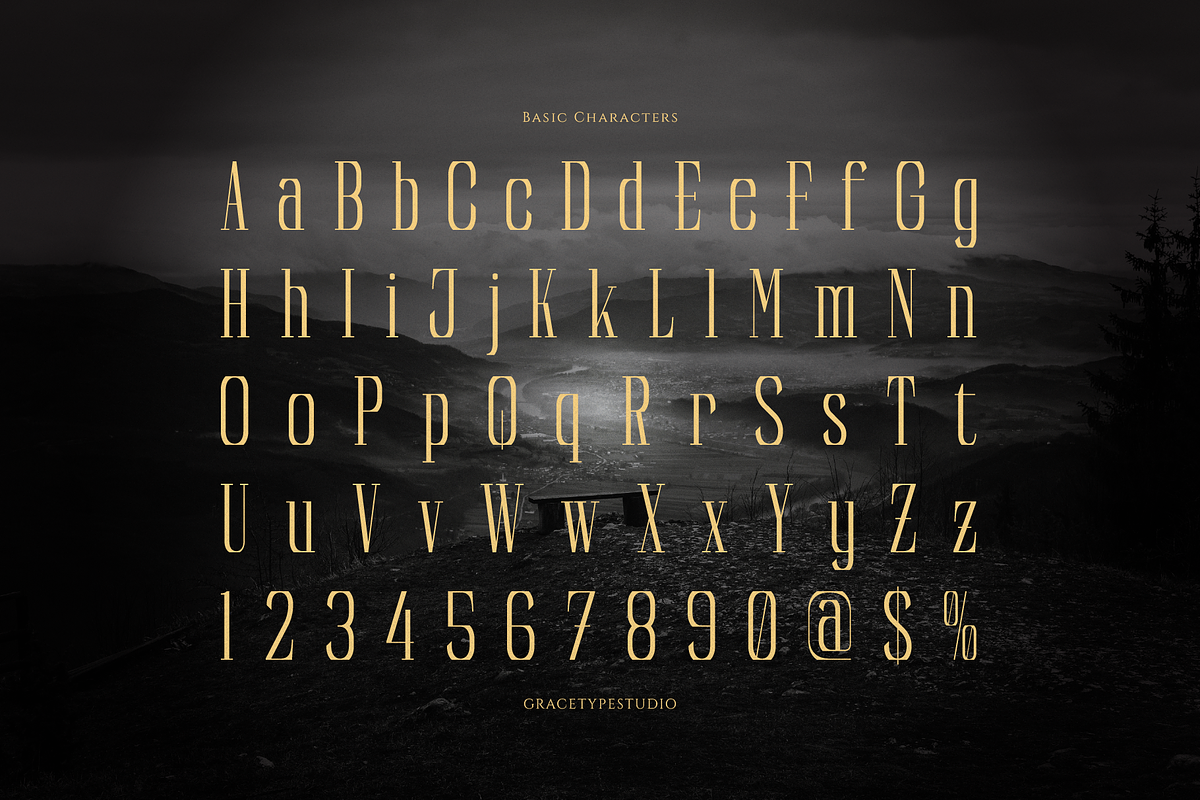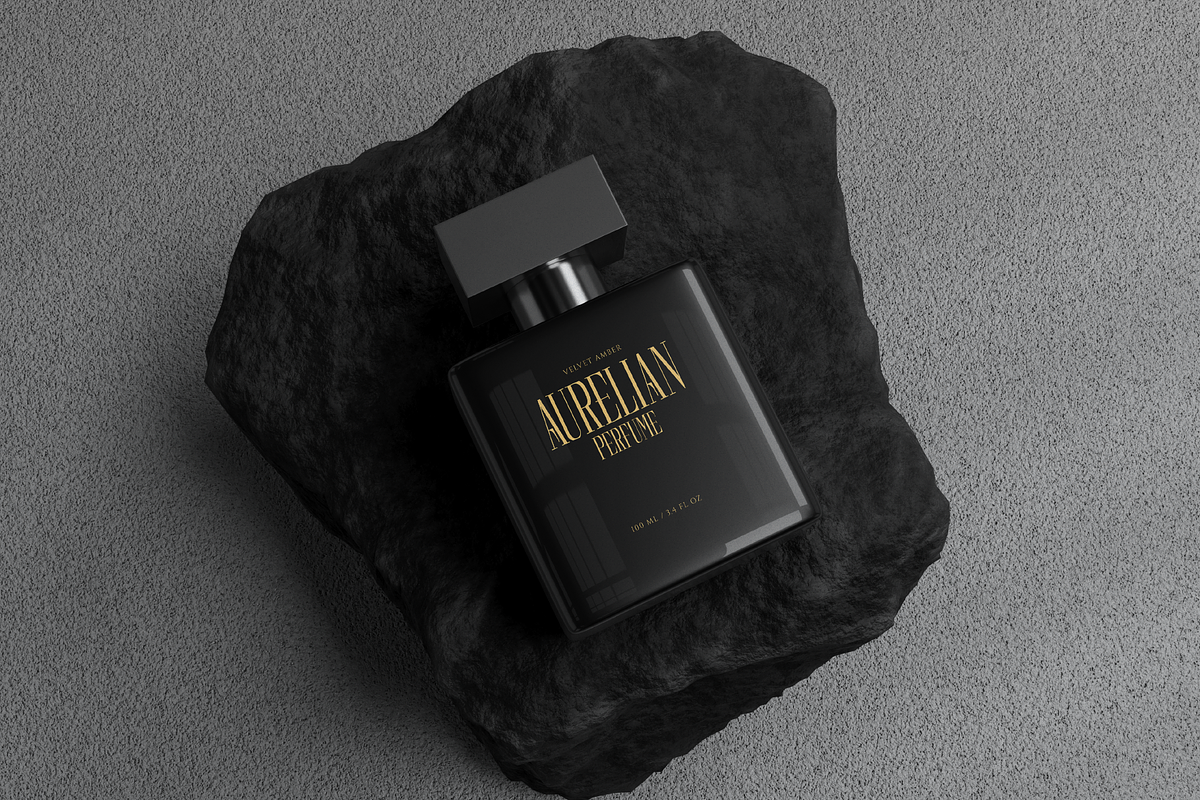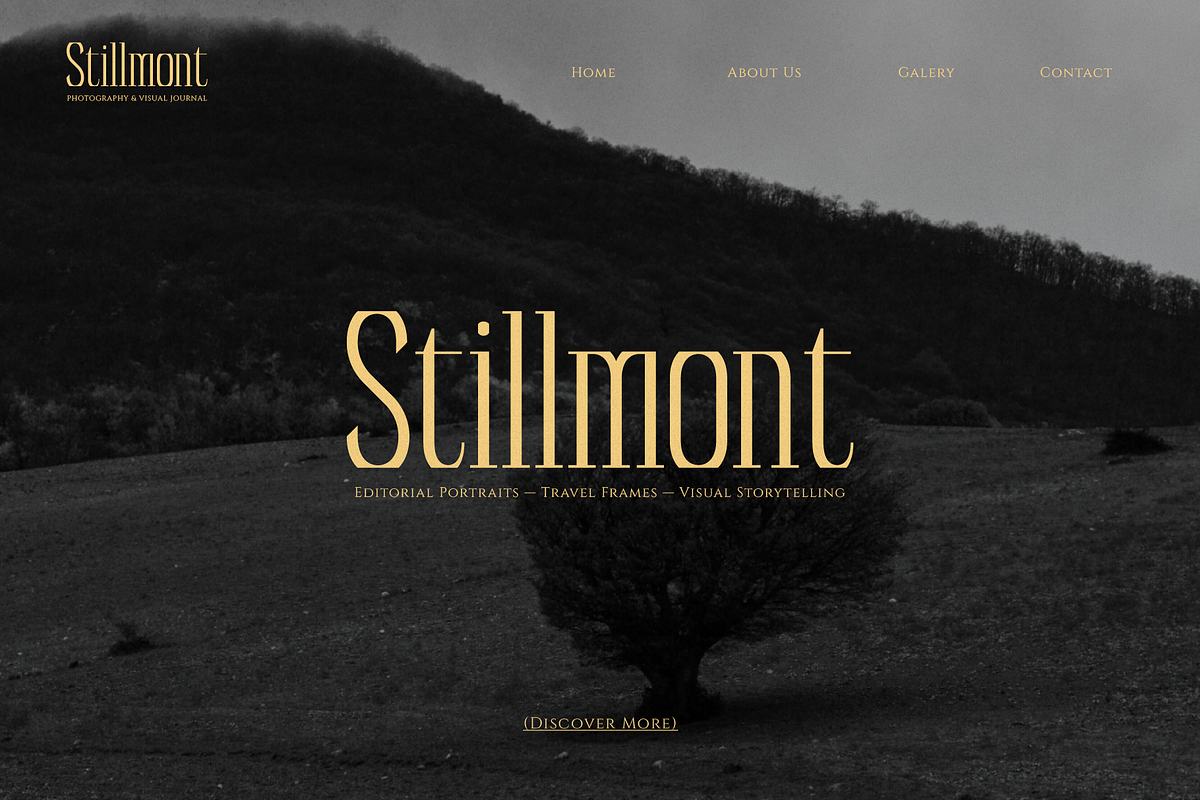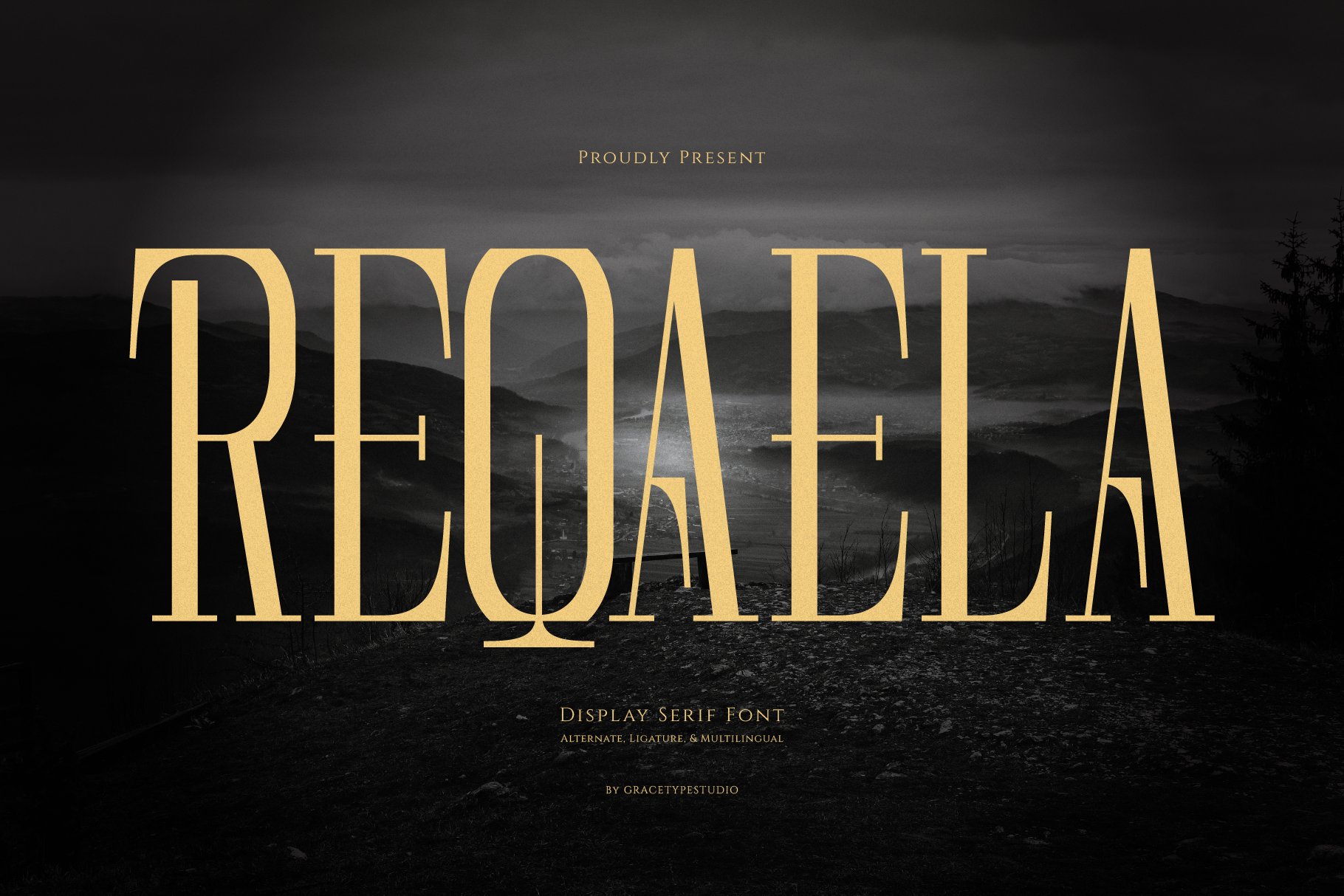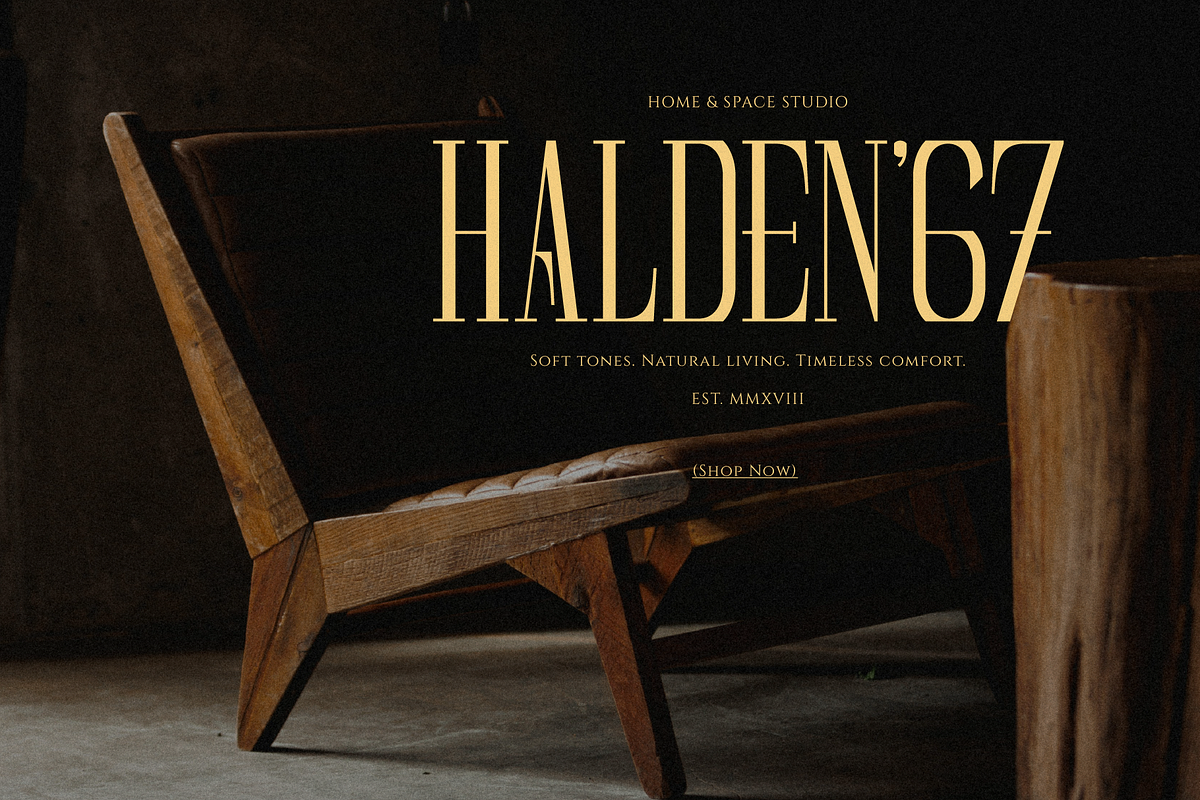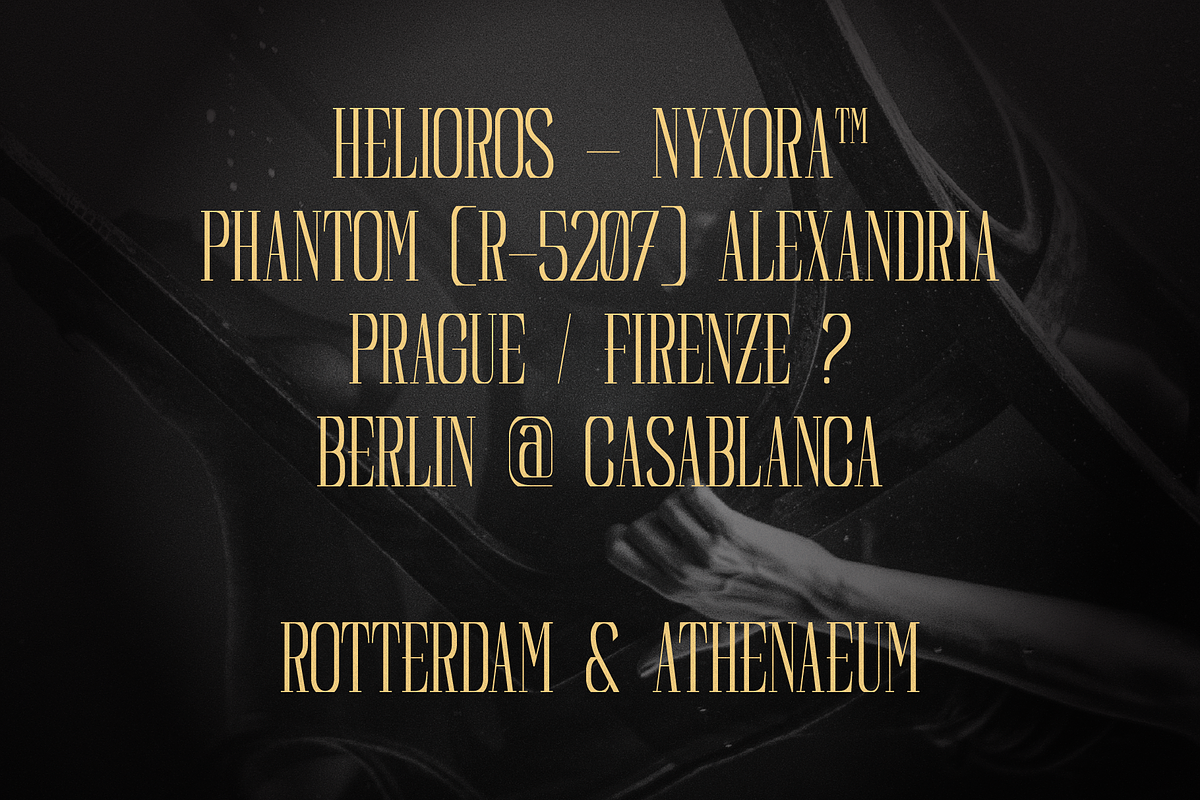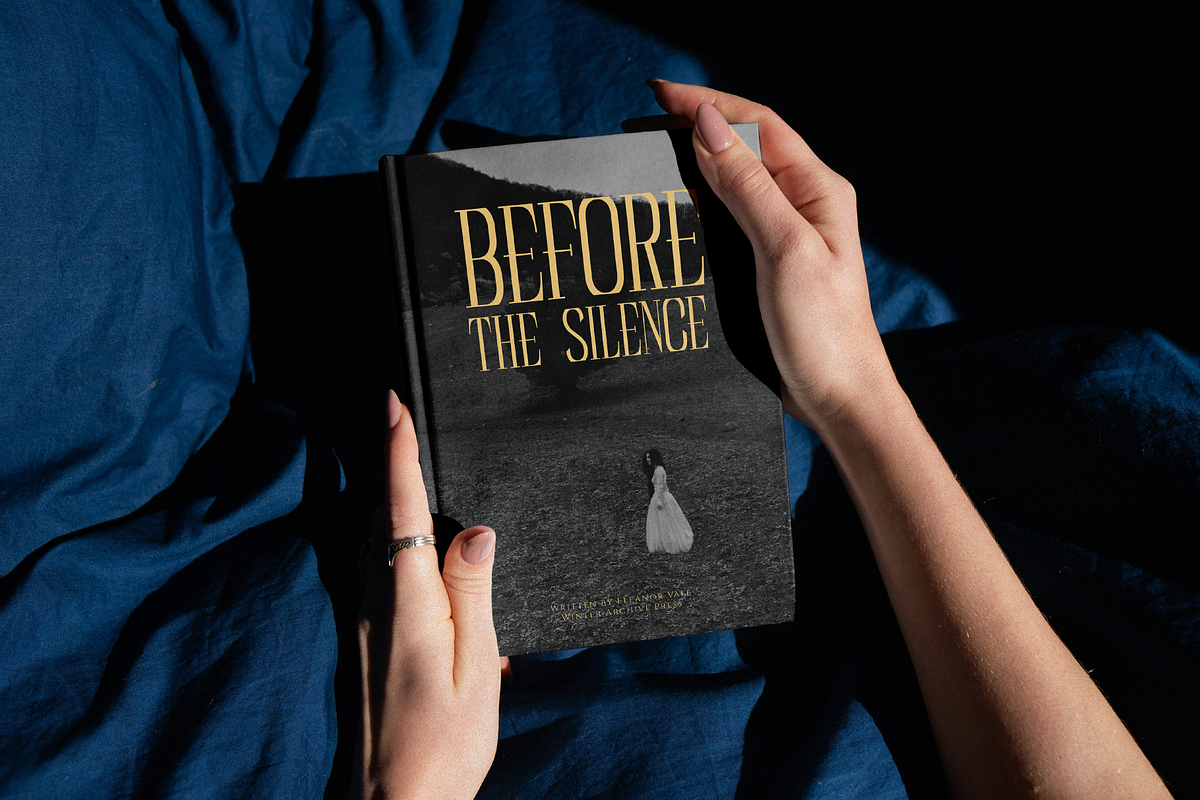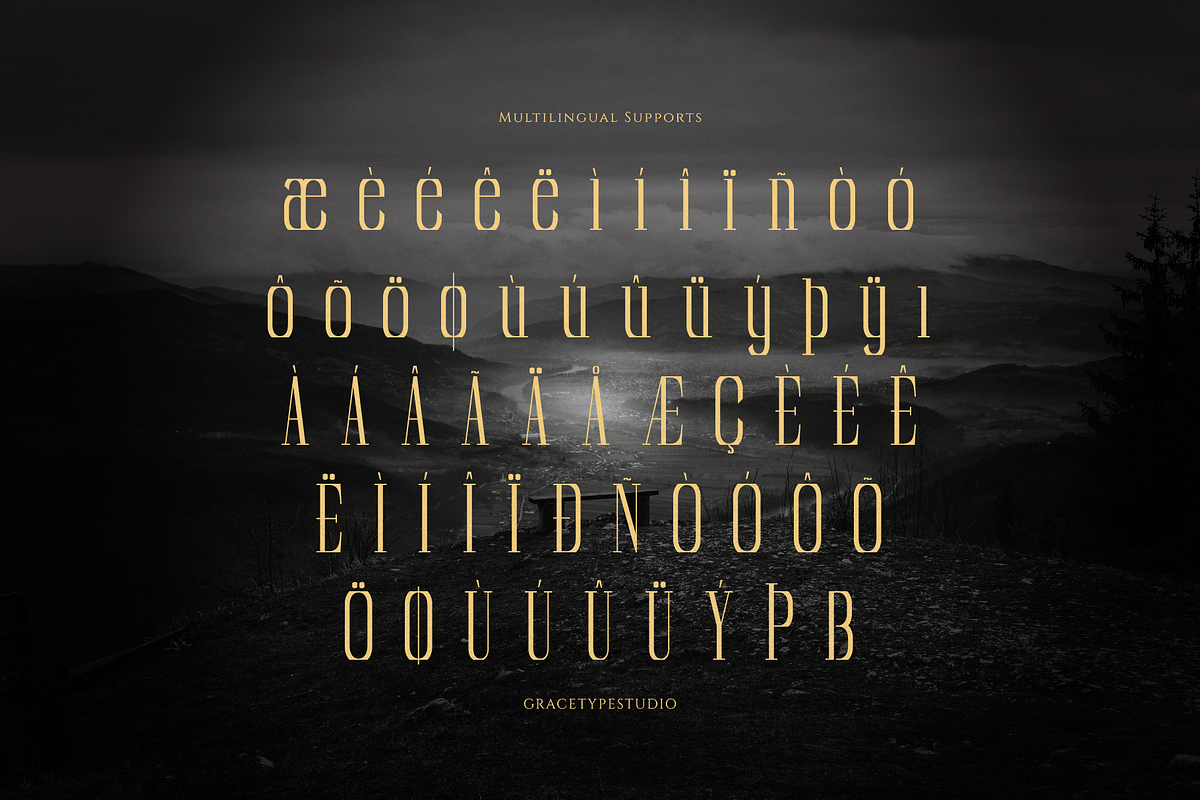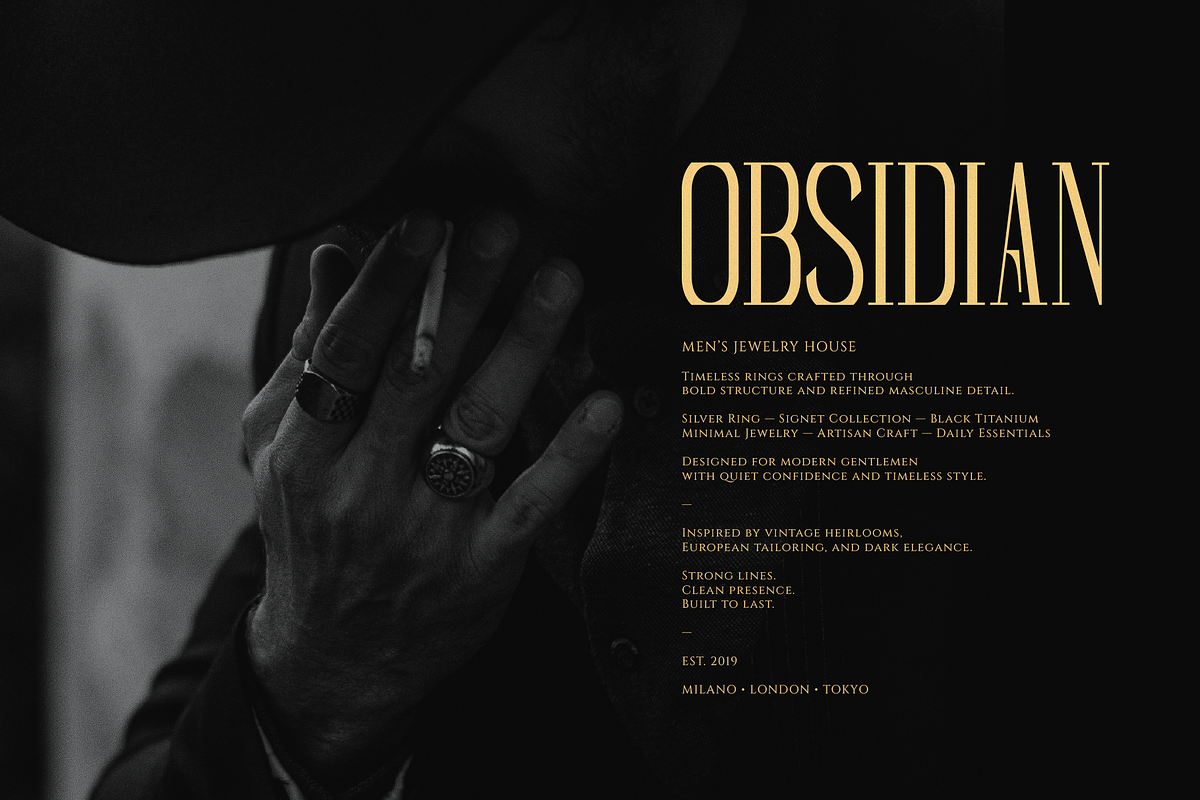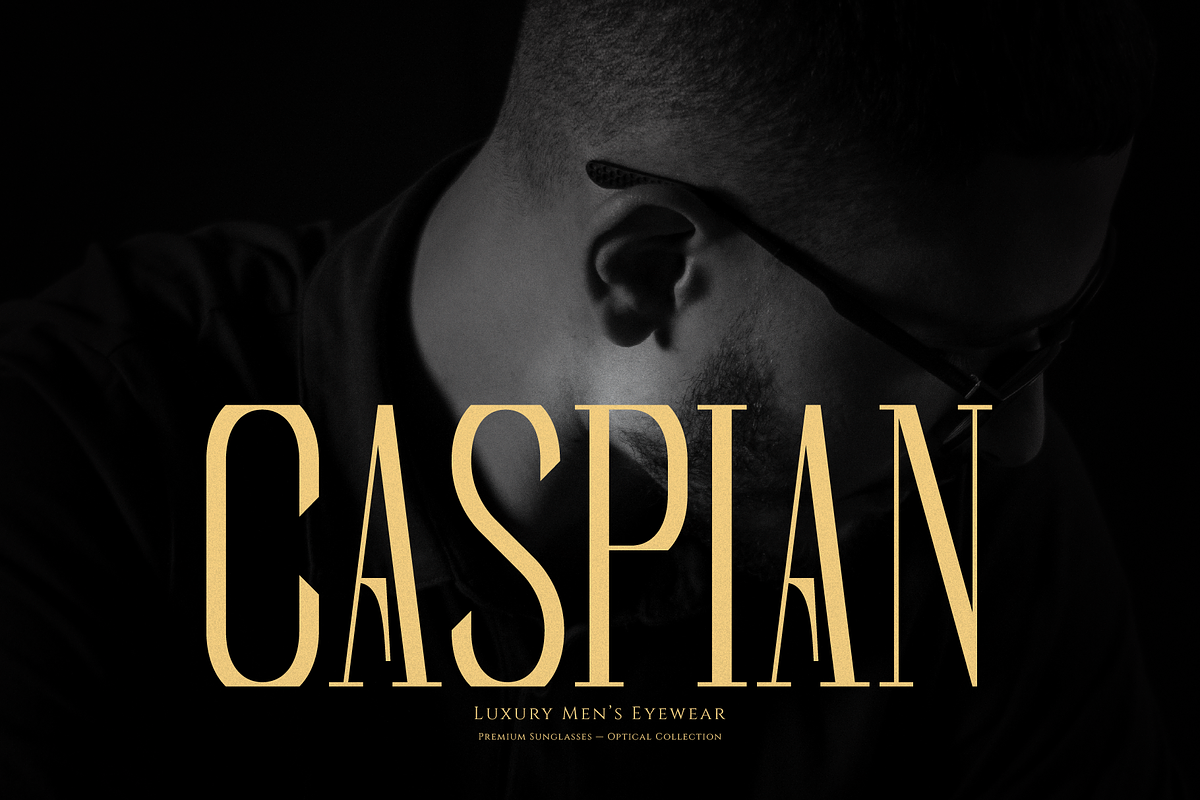
Reqaela | Display Serif Font
Reqaela | Display Serif Font, from Gracetypestudio, suitable for any projects such as: logos, branding projects, homeware designs, product packaging, mugs, quotes, posters, shopping bags, t-shirts, book covers, name card, invitation cards, greeting cards, label, photography, watermark, special events, and all your other lovely projects that need a Serif taste.
Alternate and Ligature
Fonts include multilingual support